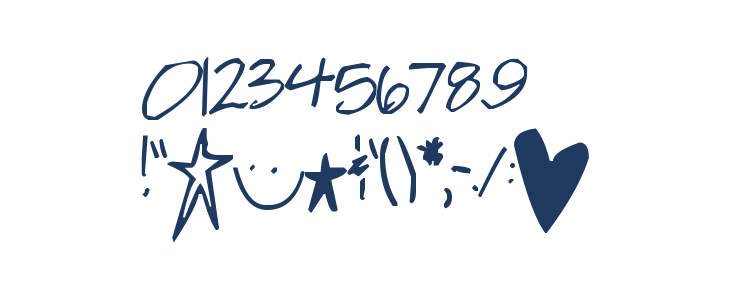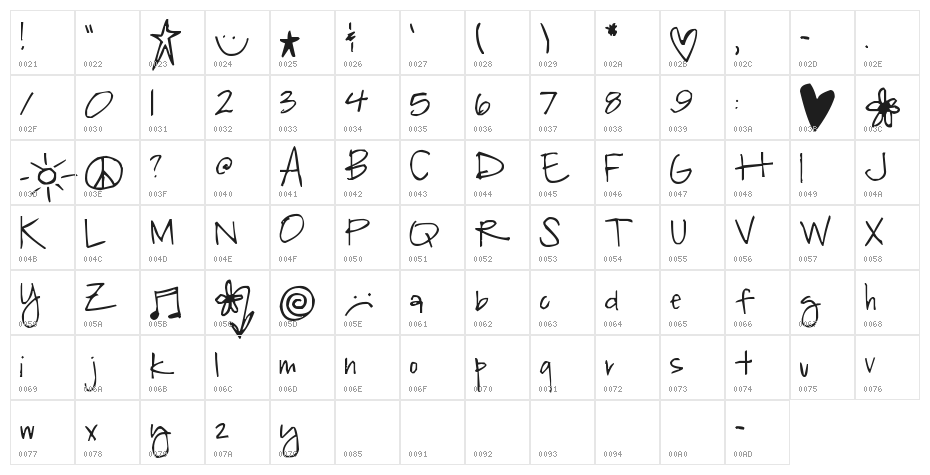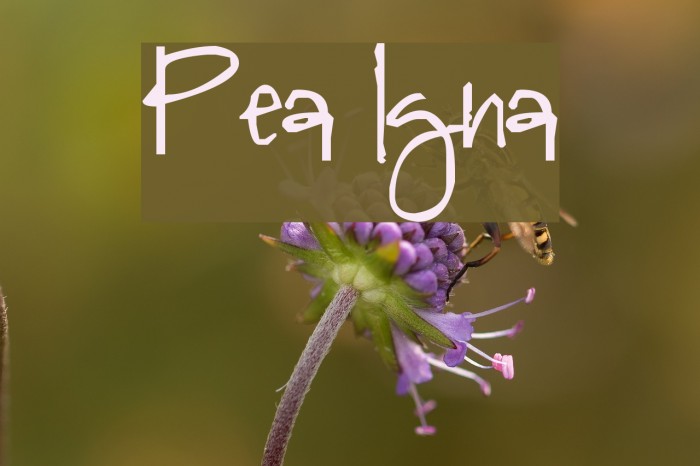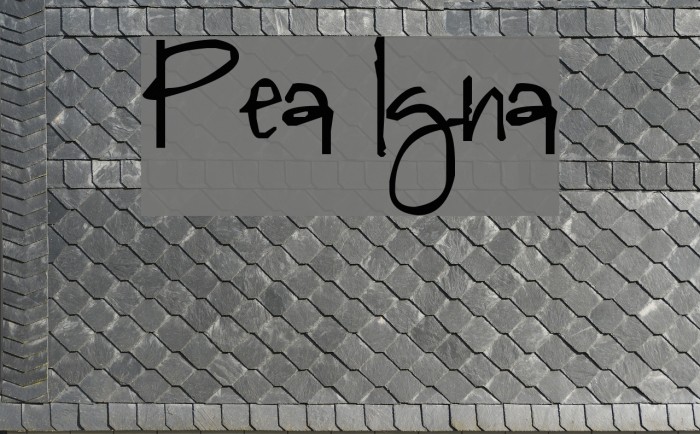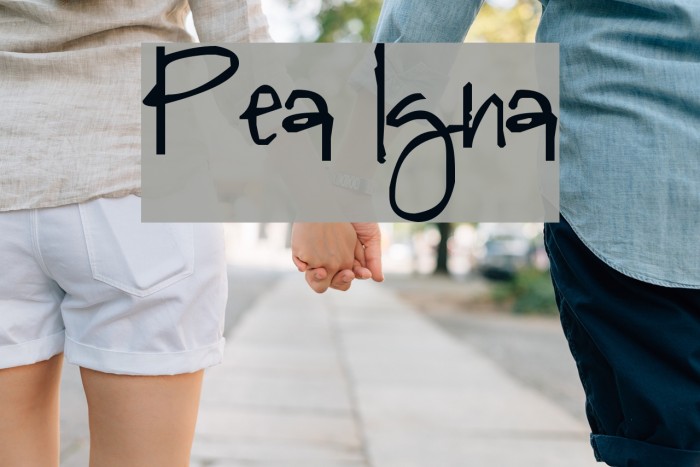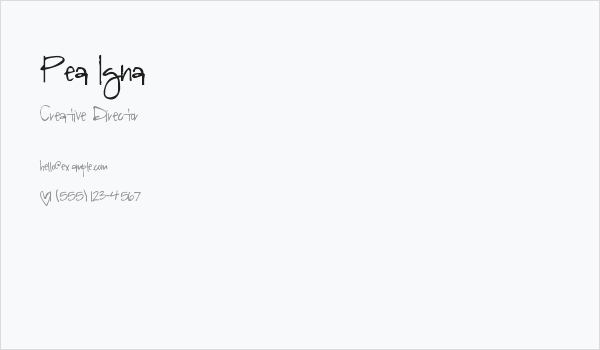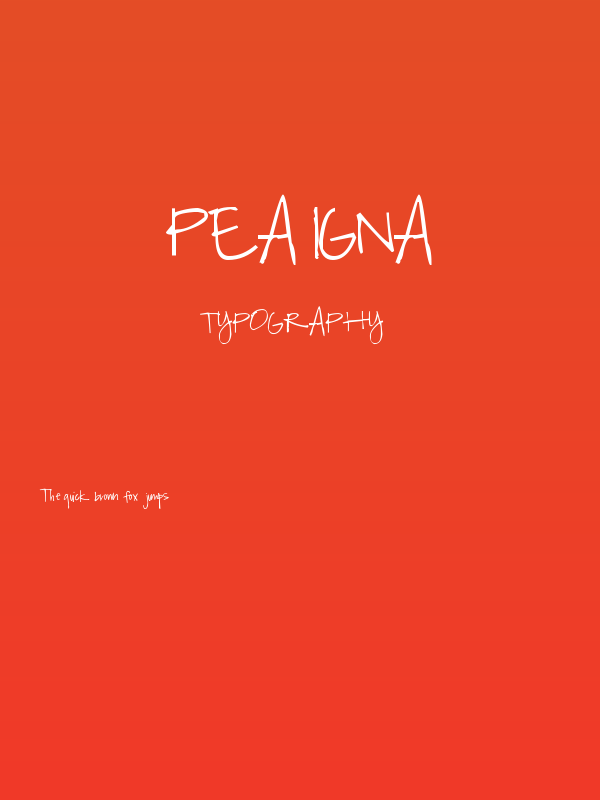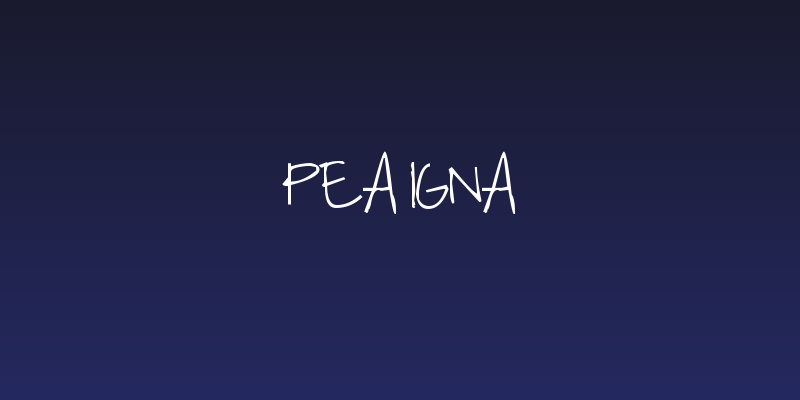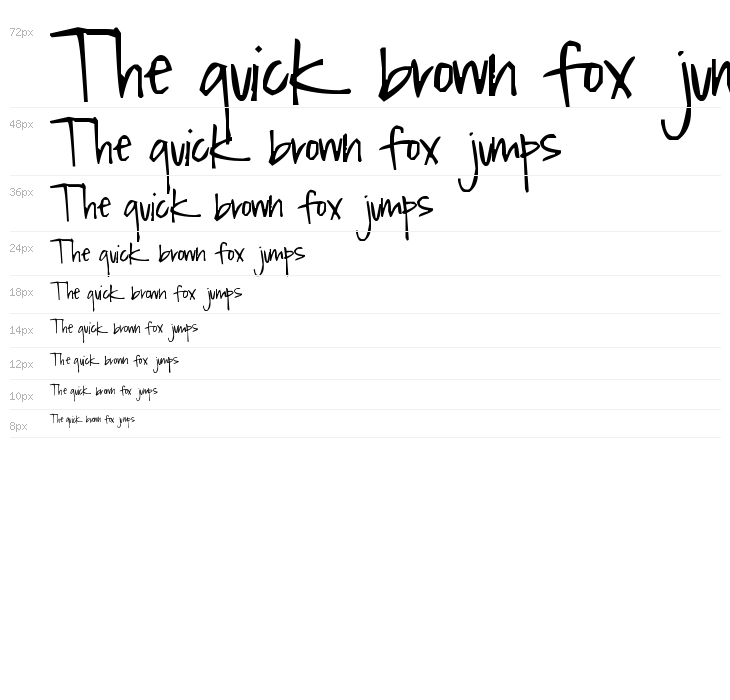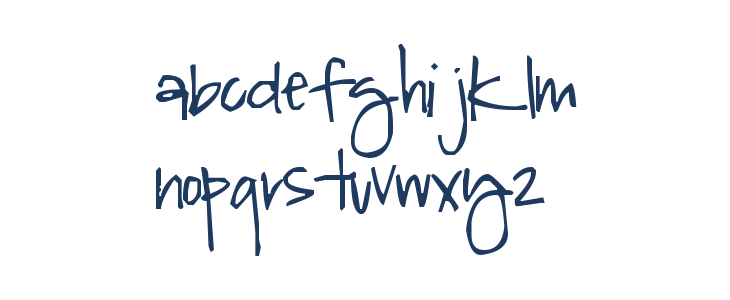
Pea Igna Font
Pea Igna Description
This playful and energetic font features a handwritten style with a casual, informal appearance. The letters are slightly irregular, adding a personal touch that mimics natural handwriting. The uppercase and lowercase characters are well-balanced, with a consistent flow that enhances readability. The numbers and special characters maintain the same lively style, making this font versatile for various creative projects. Its unique charm is perfect for designs that require a personal, friendly touch.
PEA-IGNA UPPERCASE
PEA-IGNA LOWERCASE
PEA-IGNA OTHER CHARS